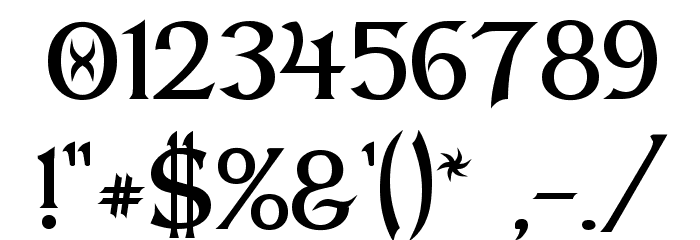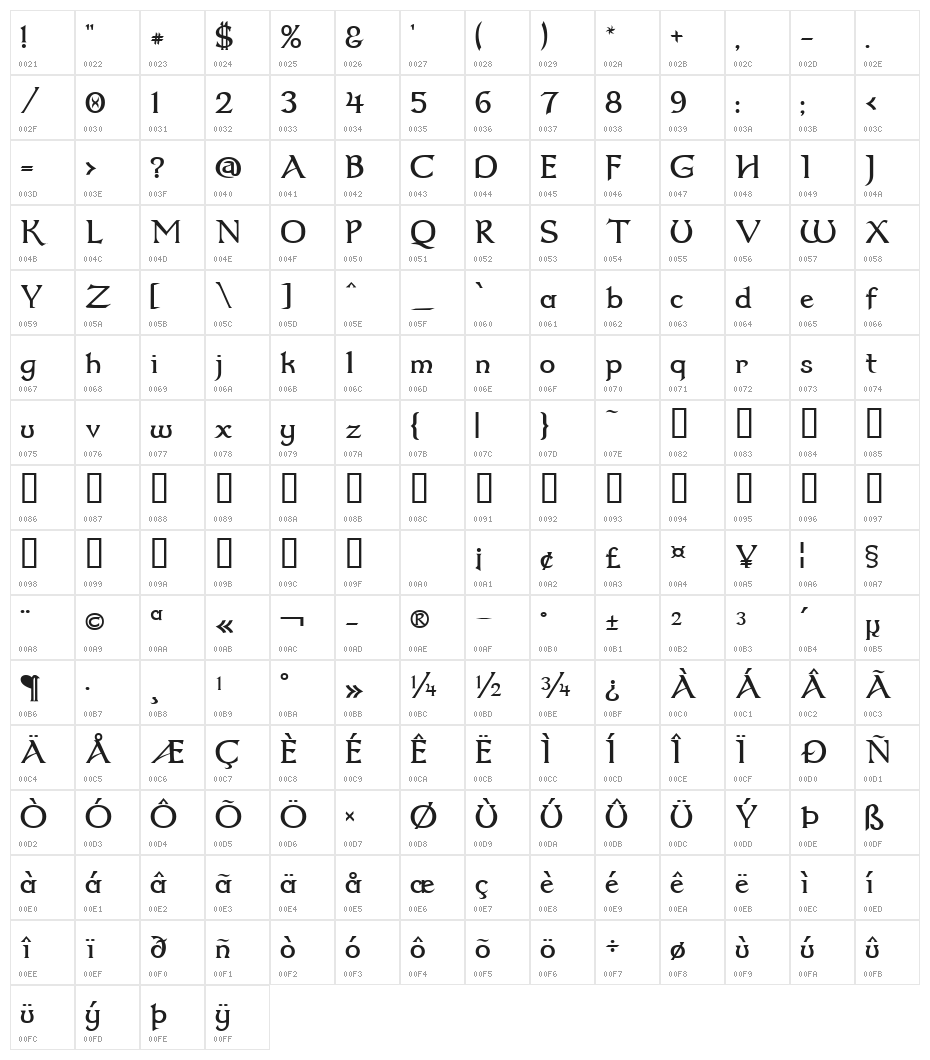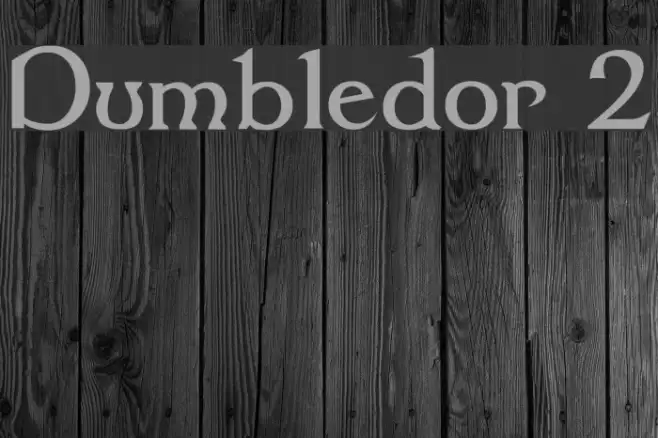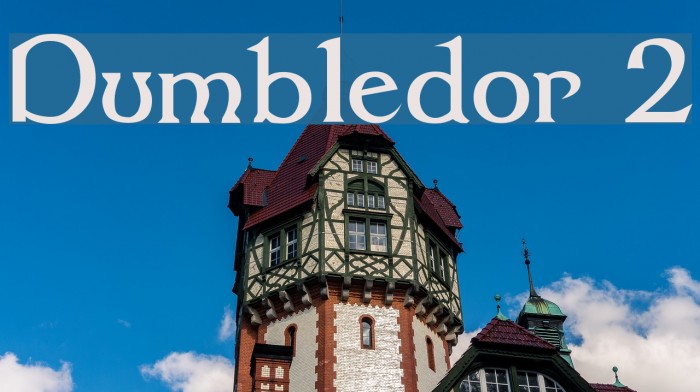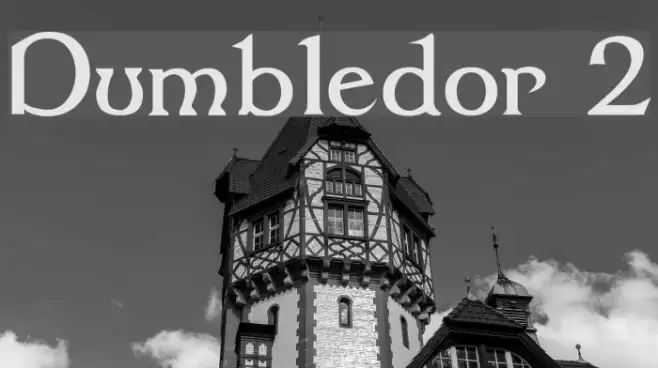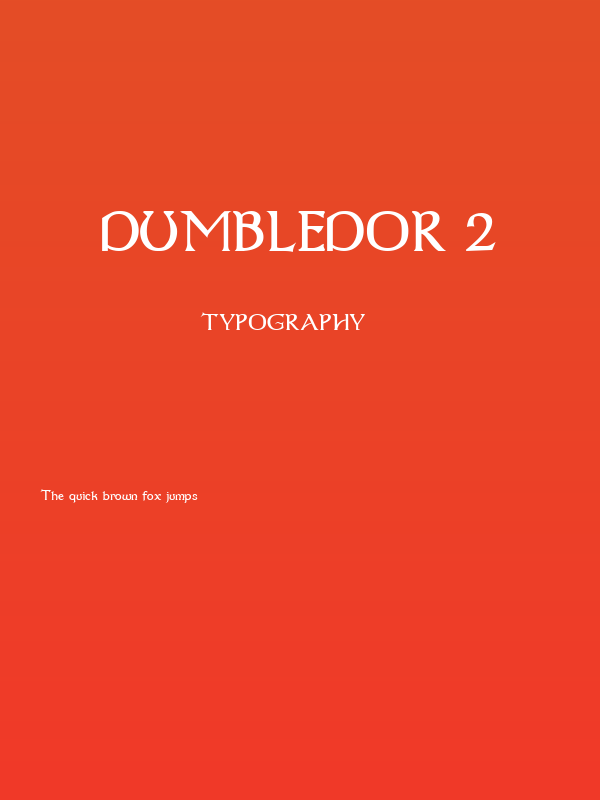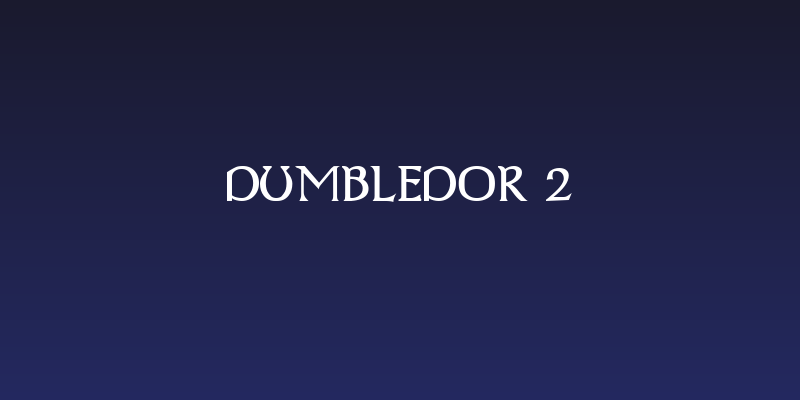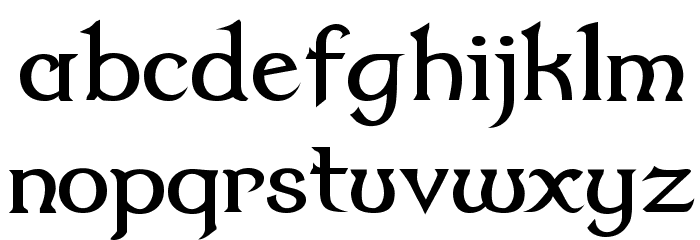
Dumbledor 2 Font
Dumbledor 2 Description
This font features a unique blend of medieval and modern elements, characterized by its sharp, angular serifs and distinctively curved strokes. The uppercase letters exhibit a strong presence with their bold, pointed serifs and slightly condensed forms, while the lowercase letters maintain a consistent style with a touch of elegance and fluidity. The numerals are designed to complement the overall aesthetic, with a balanced mix of curves and angles. Special characters are crafted to match the font's distinctive style, making it suitable for a variety of creative applications.
| Proposed Projects | Ideal for fantasy-themed projects, book covers, movie titles, and branding that requires a touch of mystique and elegance. |